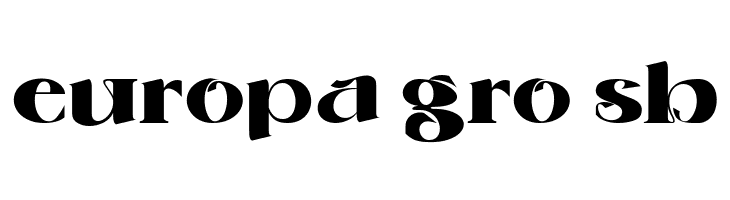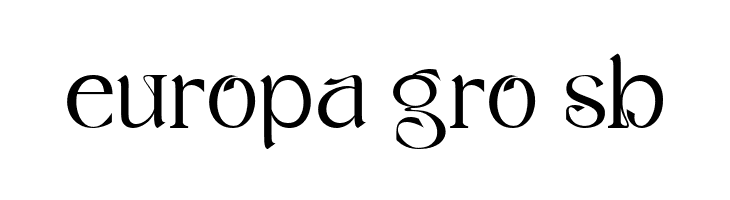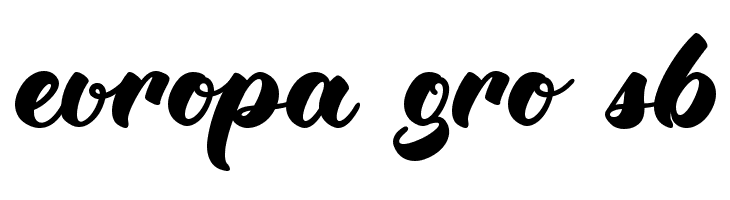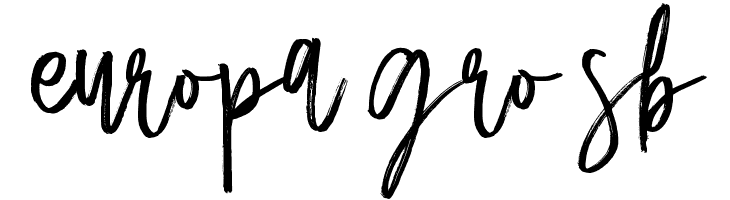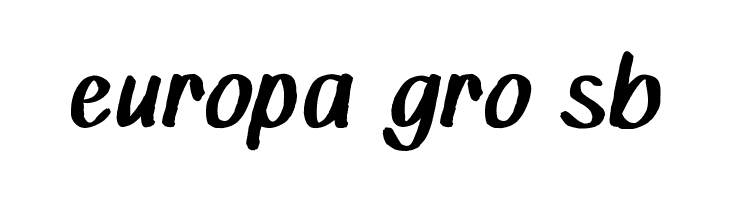
A bold, decorative font with modern geometric elements and elegant flourishes.
A modern and elegant font with sharp edges and graceful curves.
A bold, expressive script font with fluid, cursive strokes.
A graceful calligraphic script font with elegant curves and dynamic flow.
A dynamic, expressive handwritten font with a modern brush-like texture.
A bold, handwritten font with dynamic and expressive strokes.
A fluid and elegant script font with a handwritten appearance.
A playful, rounded font with a hand-drawn, whimsical style.
A modern, connected font with bold, rounded characters and a playful style.
A bold, brush-style font with dynamic and expressive strokes.